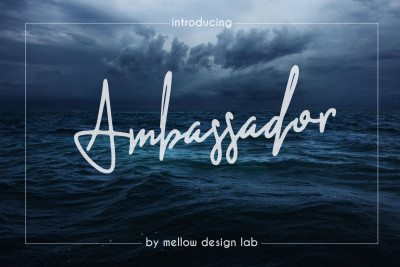
Ambassador Font
Ambassador is a thoughtfully constructed typeface that performs equally well in display and body text settings.
Explore what Ambassador can do for your work and experience the difference a well-crafted typeface makes.